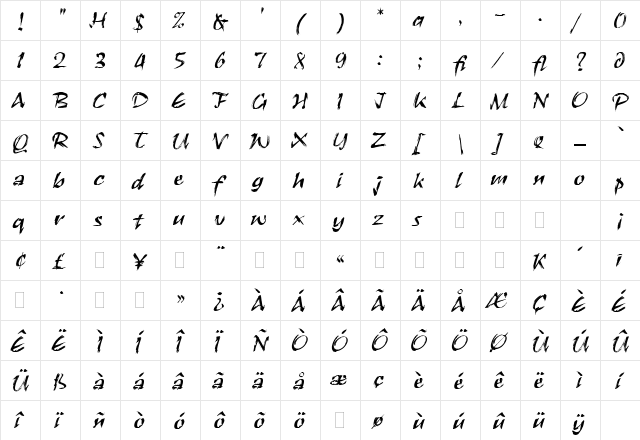
Bench Regular Font Preview
Bench Regular
Bench Regular Font Details
Design Context for Bench Typeface
Bench is a composed and adaptable typeface that performs quietly and consistently across a wide range of design contexts.